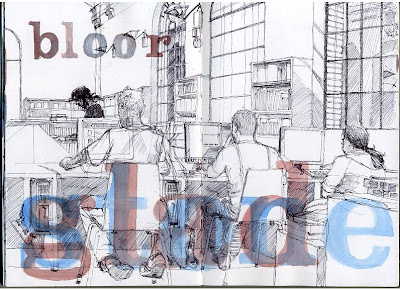
Took a break from some computer work and sketched at the Bloor Gladstone Library.
I mucked the bottom lettering. Was trying to take advantage of the transparent nature of the watercolour to get a duo reading.
Great, almost photographic, impressive result. How long did it take you? Everything is so detailed and has so much work... I'm amazed... and the lettering is something else, a little something from the designer background, right? just great.
It took me about 2 hours for this guy.
Yeah, the lettering definitely is from my design background. my spreads seem a bit naked without any type to me, so that's why I do it.
Have you heard of an artist named Kurt Holloman. I took cues from him when it came to type. He does it in a more sophisticated manner. You should take a look at his stuff.
Two hours that I'm glad you spent this way! I love the feet, so well captured! And maybe the lettering didn't turn out the way you imagined, but at least you experimented with it! Maybe it will lead you to a new technique!